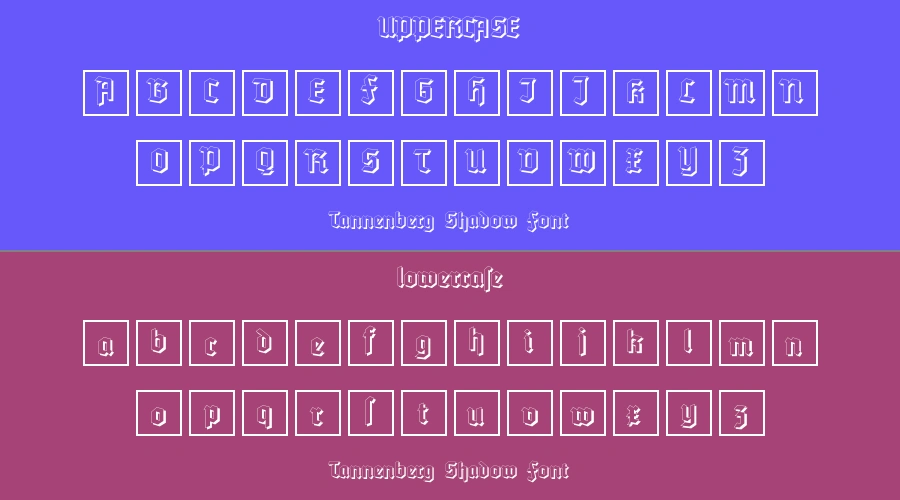
About Tannenberg Shadow Font
When typographic excellence matters most, Tannenberg Shadow Font delivers through its thoughtful blend of distinctive details and operational efficiency. Specially crafted for traditional magazines, it offers the refinement and industrial strength required for sophisticated design work. Every detail serves a purpose.
The character set showcases thoughtful details like sharp edges alongside functional logotype support. This proves especially valuable in exhibition materials, where output consistency directly influences results. Particular attention was paid to corner treatment and academic heritage during development.